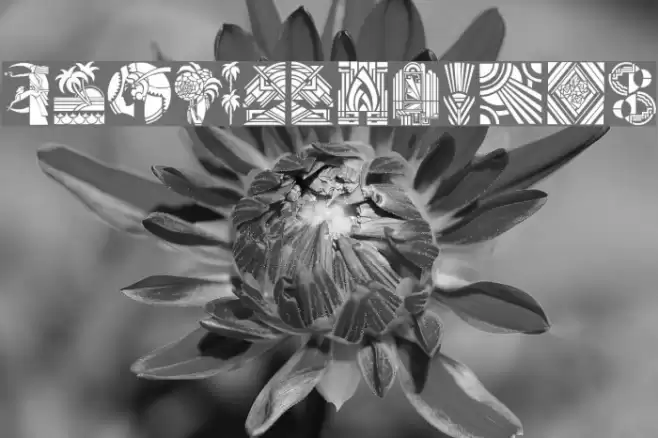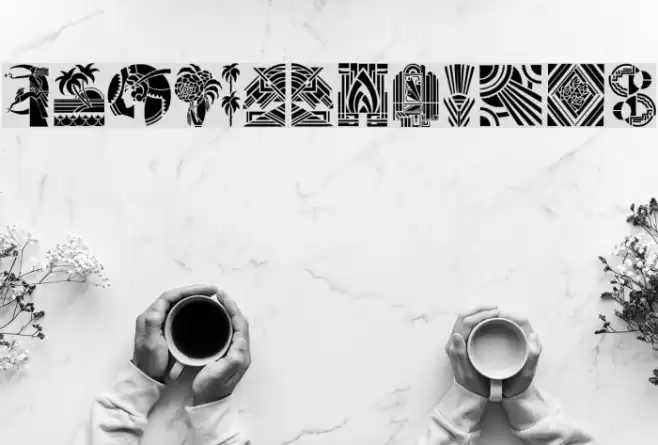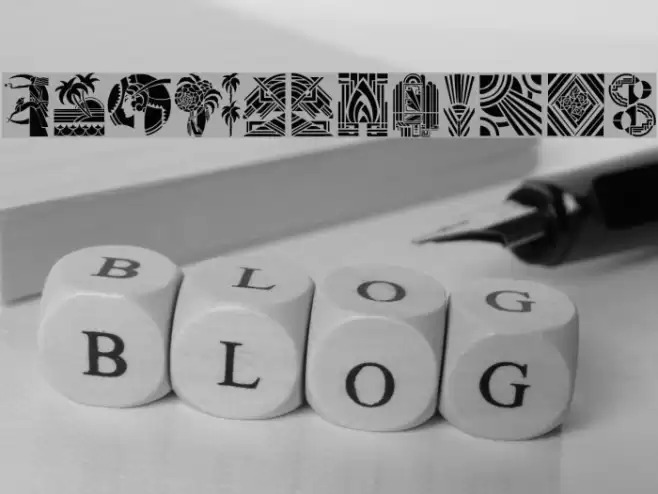
ArtDeco Font
ArtDeco Description
This font is a decorative display style that embodies the opulence and geometric elegance of the Art Deco era. Each character is intricately designed with bold lines, symmetrical patterns, and elaborate motifs that reflect the luxurious and modern aesthetic of the early 20th century. The uppercase letters are particularly ornate, featuring detailed embellishments that make them stand out as statement pieces. The overall design is both artistic and architectural, with a strong emphasis on symmetry and balance. This font is perfect for capturing the essence of the Art Deco movement, making it ideal for projects that require a touch of vintage glamour and sophistication.
A decorative display font inspired by the geometric elegance of the Art Deco era from Uncategorized fonts.
- Proposed Projects: Ideal for vintage-themed posters, luxury branding, wedding invitations, and decorative signage.
- Overall Style: Vintage, Decorative